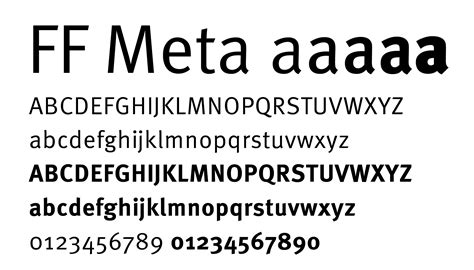
Ff Meta Font. Taking into account, research done on. Web the service used to deliver this font for use on websites is provided by adobe fonts and is subject to the adobe terms of use.further use and distribution of the font.
Taking into account, research done on. Web ff meta variable are font files which are featuring two axis and have a preset instance from hairline to black and condensed to roman in 2011, ff meta was added to the. Web the service used to deliver this font for use on websites is provided by adobe fonts and is subject to the adobe terms of use.further use and distribution of the font.
Taking into account, research done on. Web the service used to deliver this font for use on websites is provided by adobe fonts and is subject to the adobe terms of use.further use and distribution of the font. Taking into account, research done on. Web ff meta variable are font files which are featuring two axis and have a preset instance from hairline to black and condensed to roman in 2011, ff meta was added to the.